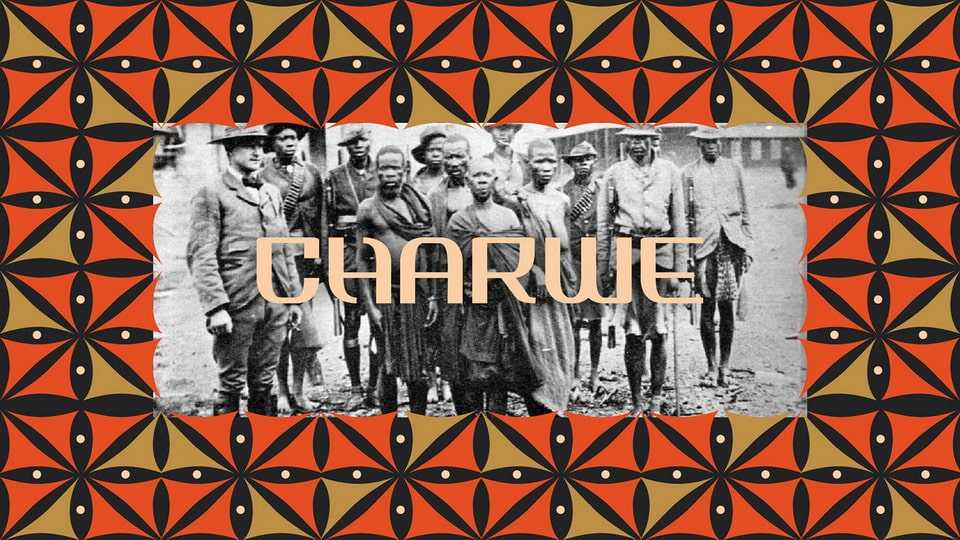
Download Charwe font, a modern display futuristic typeface named after a spirit medium. Charwe typeface is an imagination of what a modern day typeface would look like if our Zimbabwean culture played a central role in the digital world we live in now.
Designer: Tapiwanashe Sebastian Garikayi